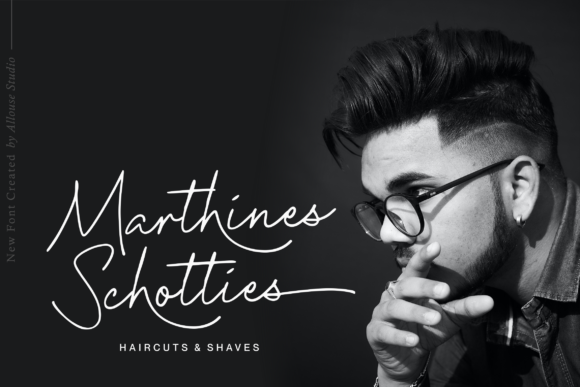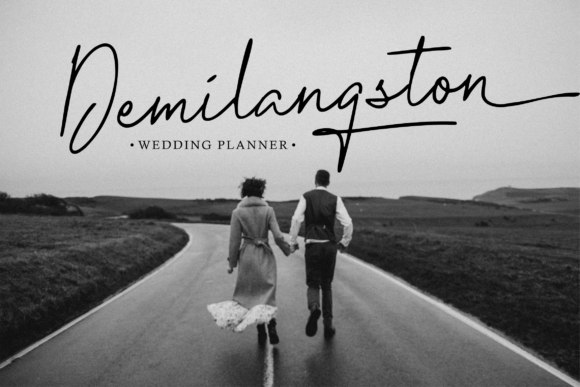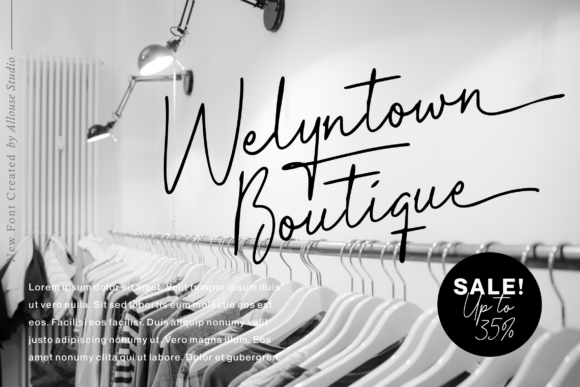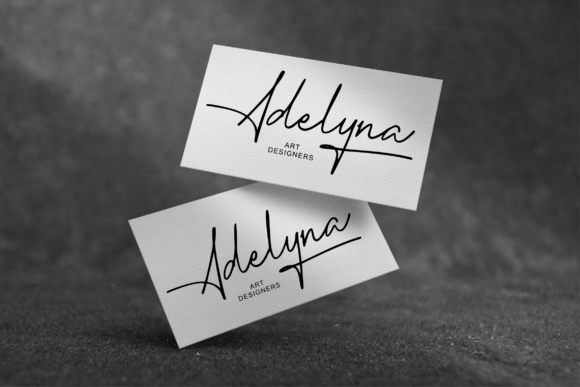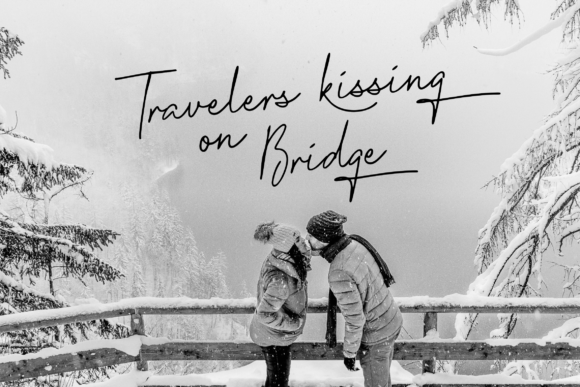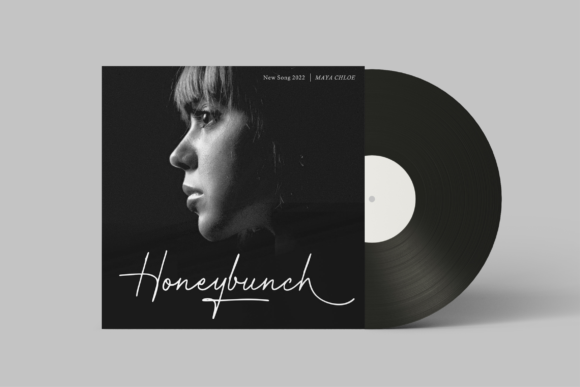
Introduction to Skeptisgraph Font
Skeptisgraph is a beautiful and light handwritten font with a unique feel and a stunning impact.
It will add a luxury spark to any design project that you wish to create Skeptisgraph is PUA encoded which means you can access all of the amazing glyphs and ligatures with ease.